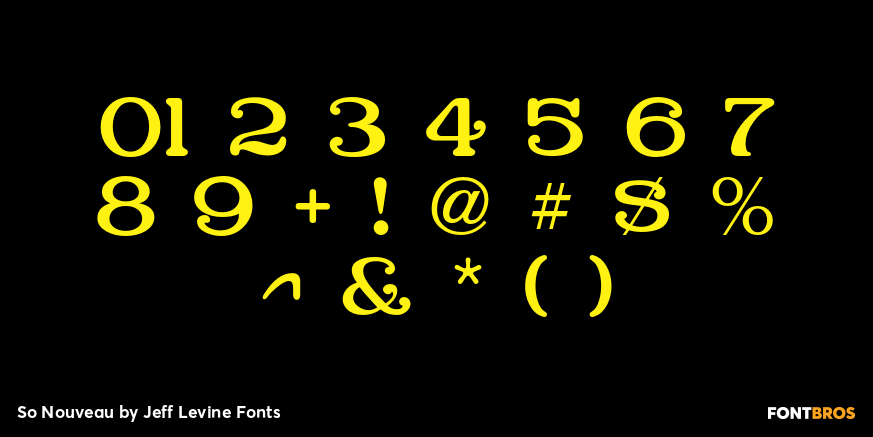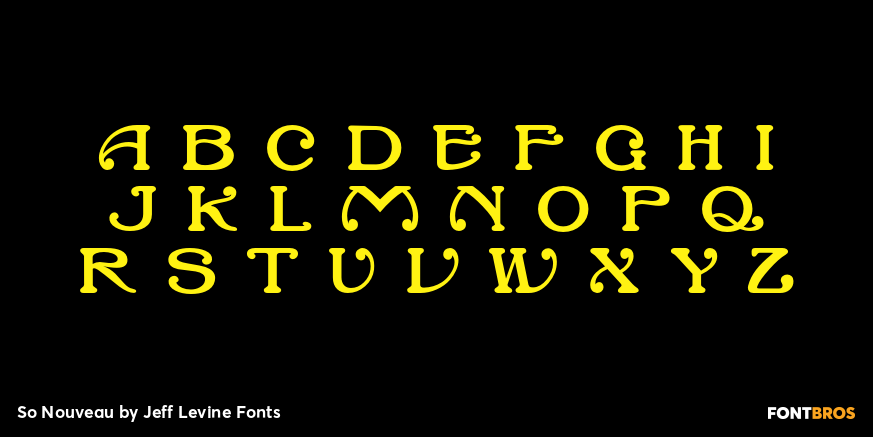
So Nouveau
Three of the four letters of the name 'Jane' on the cover of a vintage piece of sheet music inspired So Nouveau JNL. The free-form swoops emulating the pen lettering of the early 1900s adds a nostalgic charm to this typeface.
So Nouveau JNL Regular by Jeff Levine Fonts